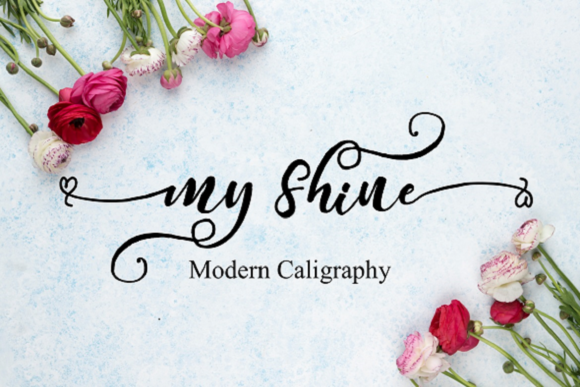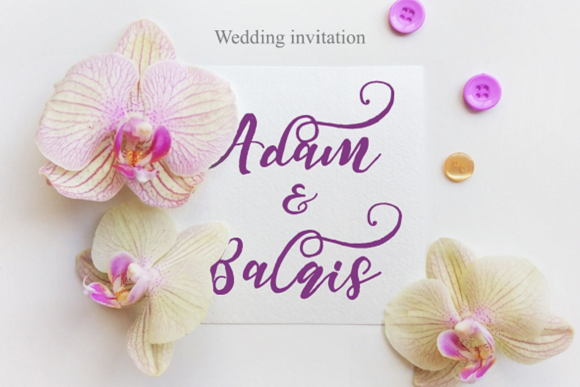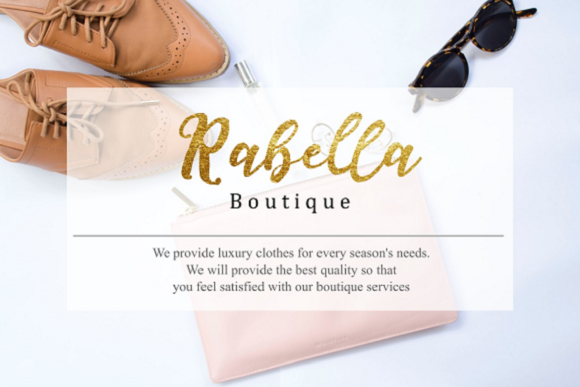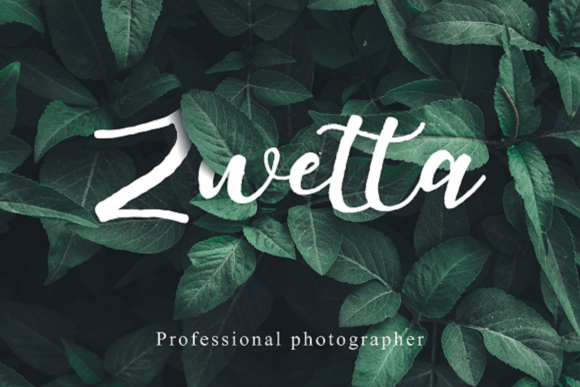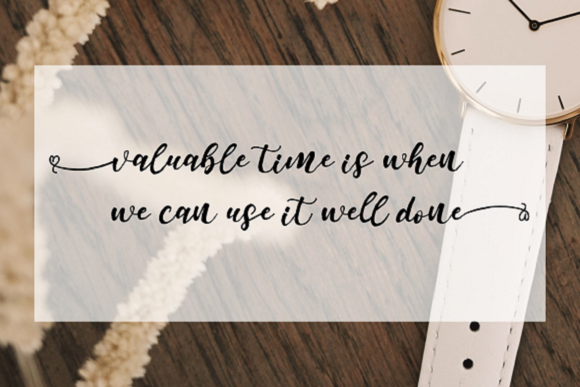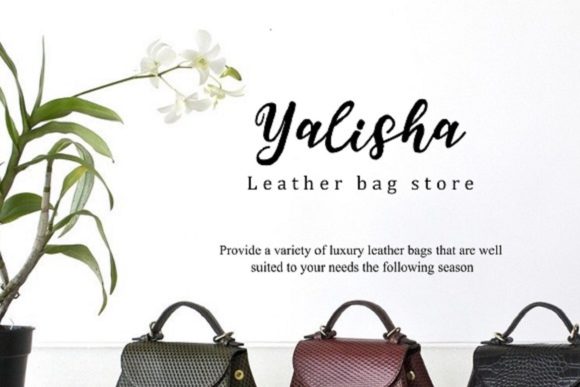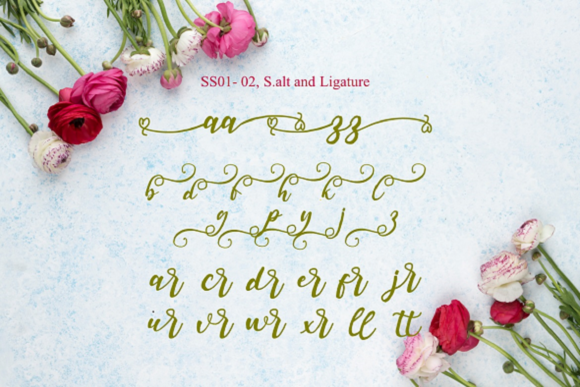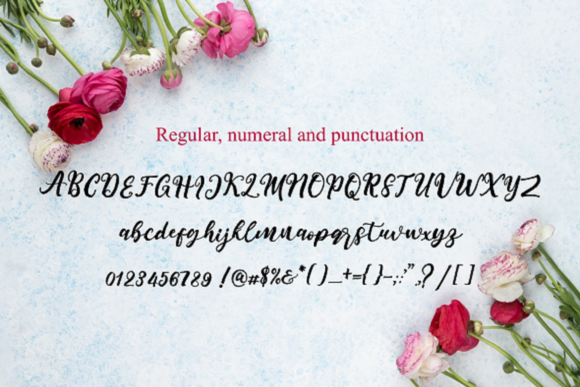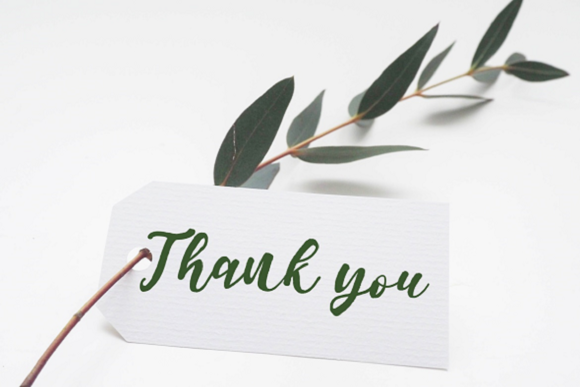
HomePersonal Use FreeMy Shine Personal Use Free My Shine FacebookXPinterestWhatsApp 1 of 9 About My Shine Font My Shine is a stunning handwritten font carefully created with a touch of elegance. This font is PUA encoded which means you can access all of the beautiful glyphs and swashes with ease! DOWNLOAD NOW People also explored Blessed Font Madison Font Monteners Font Bella Rose Font Goddess Font Looky Hallowen Font The Milligram Font Monday Fresh Font Dollie Font 409 0 TagsMy Shine Font Previous articleMonogram VegNext articleMika LEAVE A REPLY Cancel reply Comment: Please enter your comment! Name:* Please enter your name here Email:* You have entered an incorrect email address! Please enter your email address here Website: Save my name, email, and website in this browser for the next time I comment. Personal Use Free Alinda Personal Use Free Read more about this font UseYourImagination Personal Use Free Read more about this font Gunplay Personal Use Free Read more about this font Vuldo Personal Use Free Read more about this font BLOG 5 Fonts That Will Dominate Design Trends in 2026 5 Fonts for 2026 That Will Dominate Design Trends Typography plays a critical role in visual communication, and as we look ahead to 2026, it’s... Exploring Font Trends How to Cut Any Font on Cricut: Convert a Font to SVG (Free) Best Fonts for T-Shirt Design – Top 2025 Picks